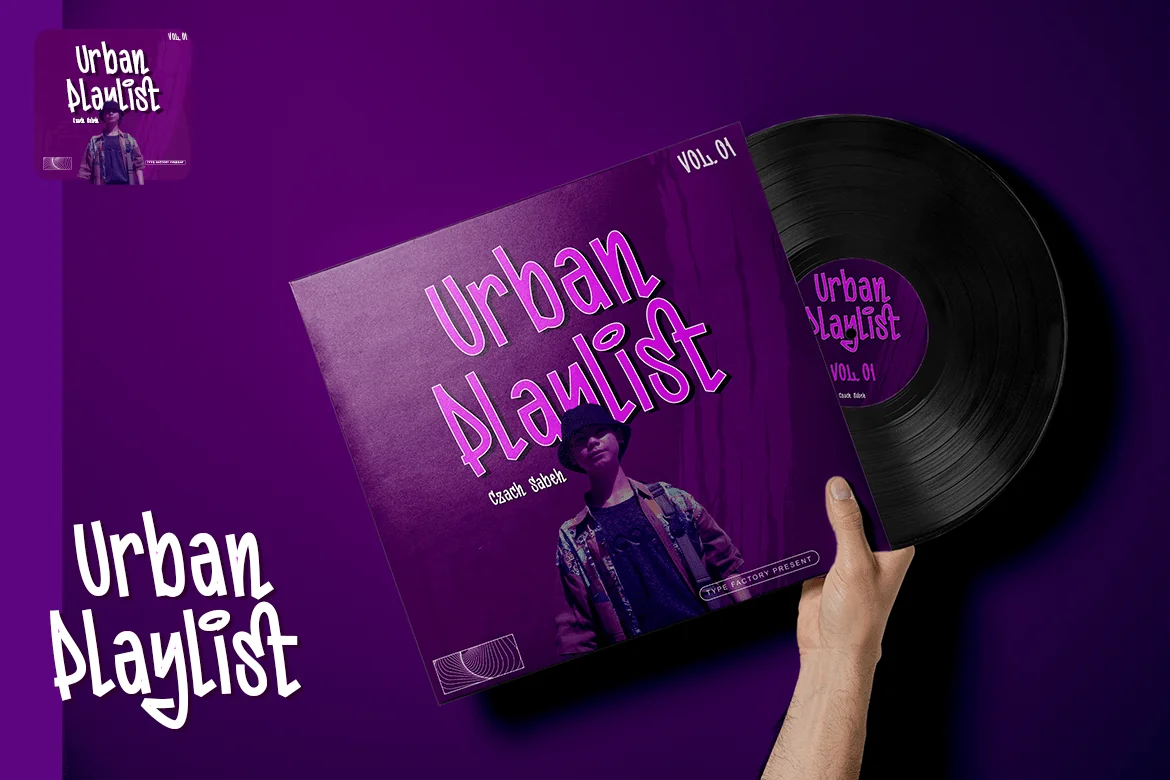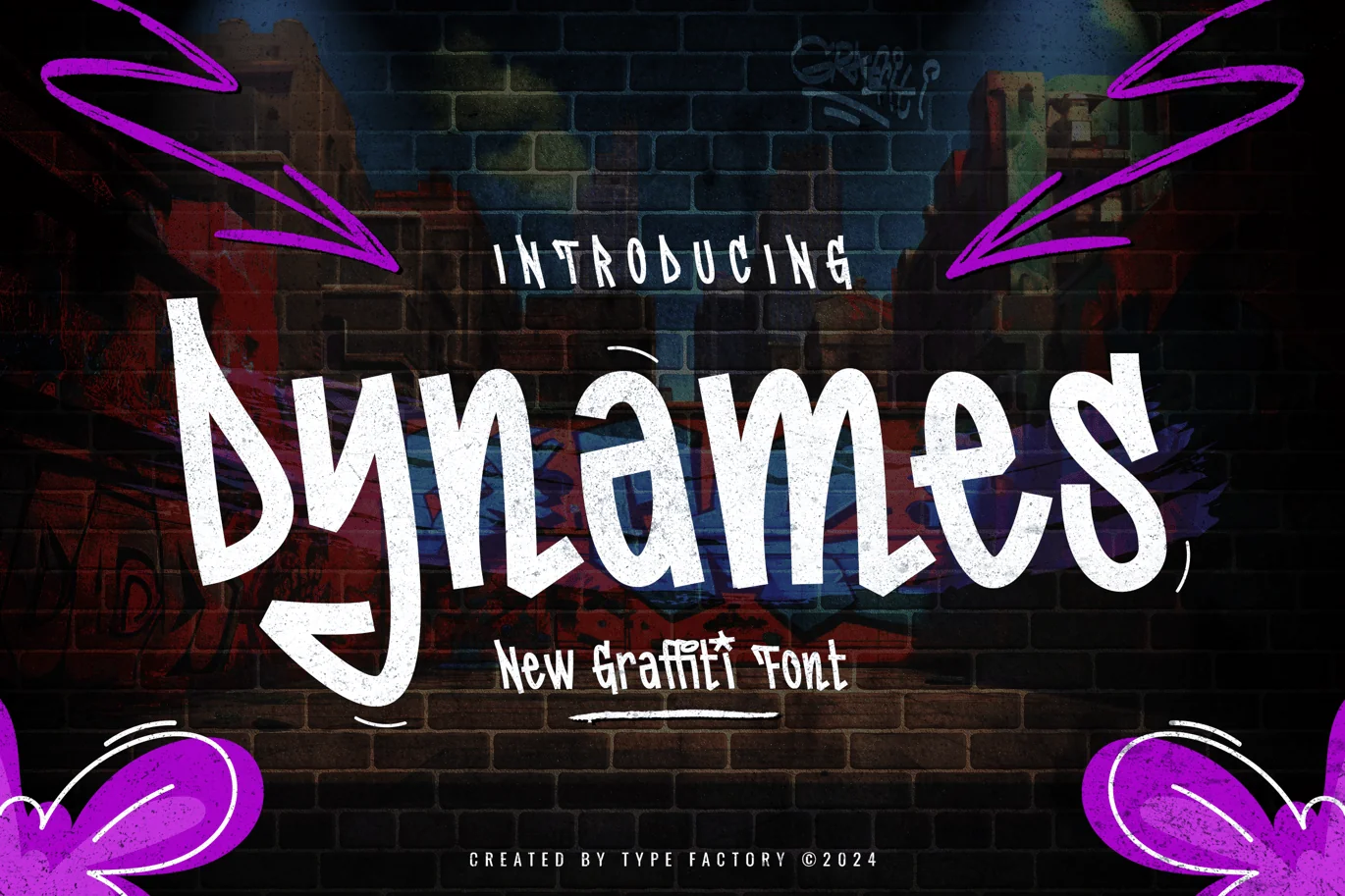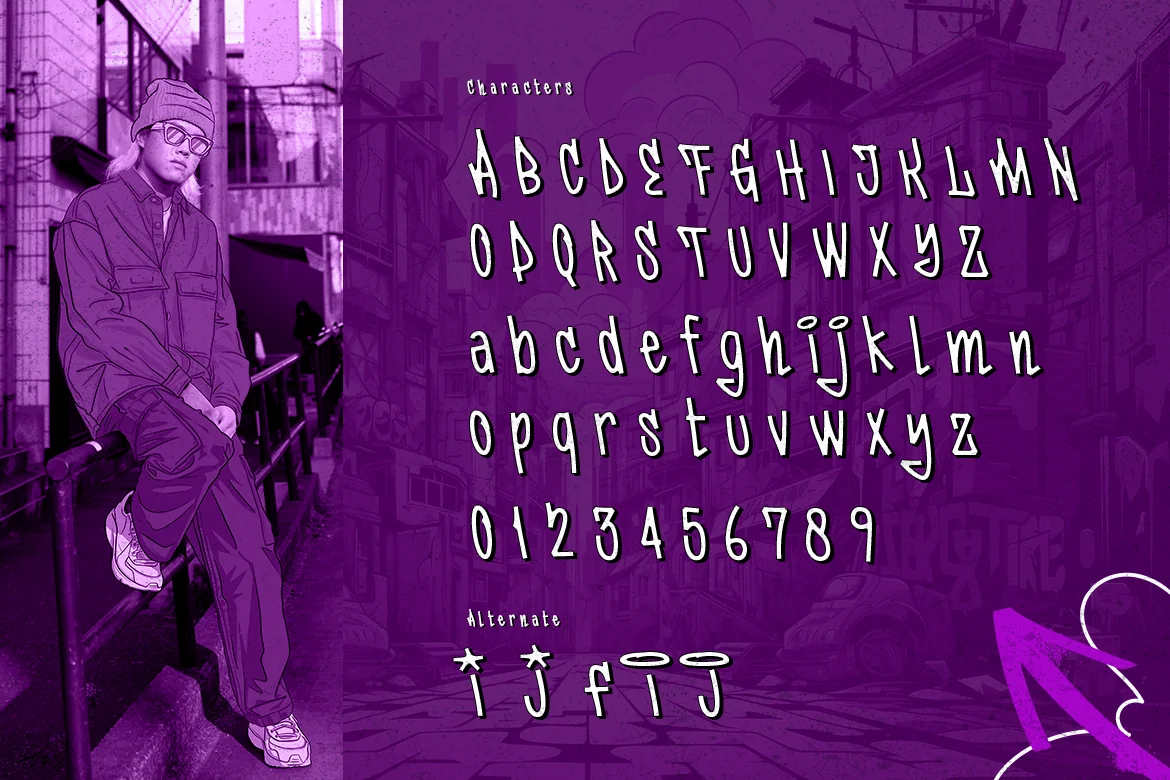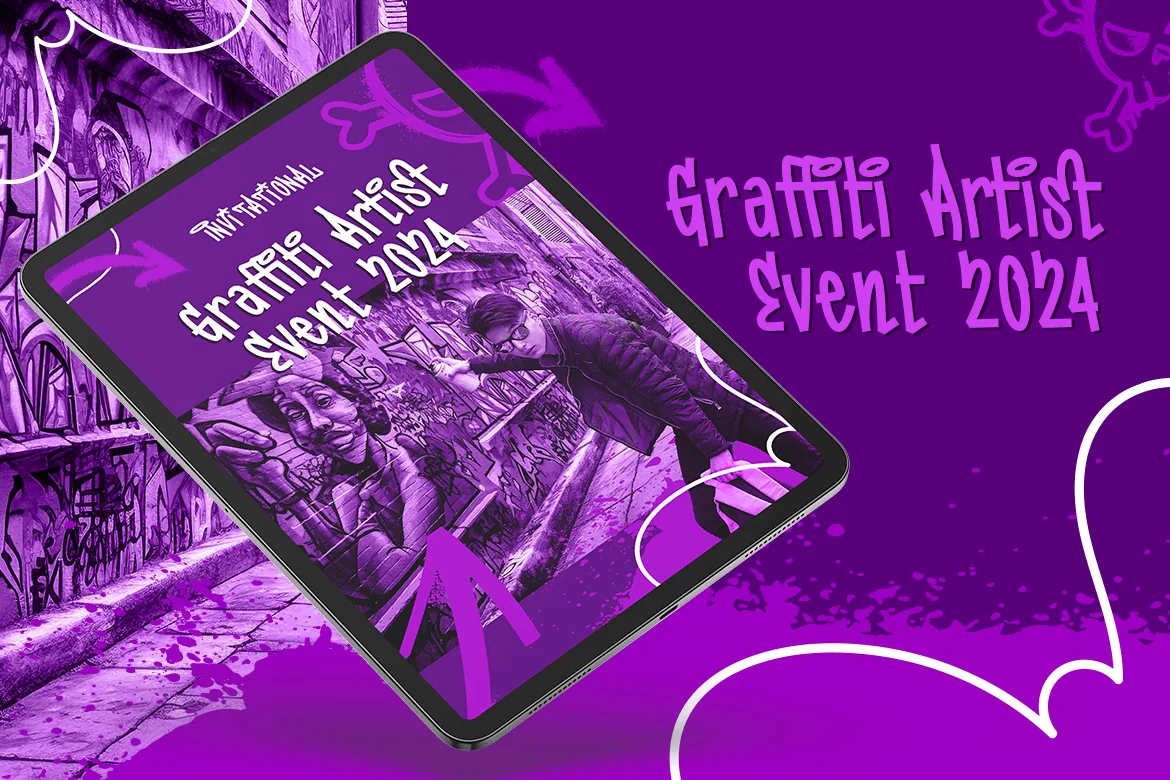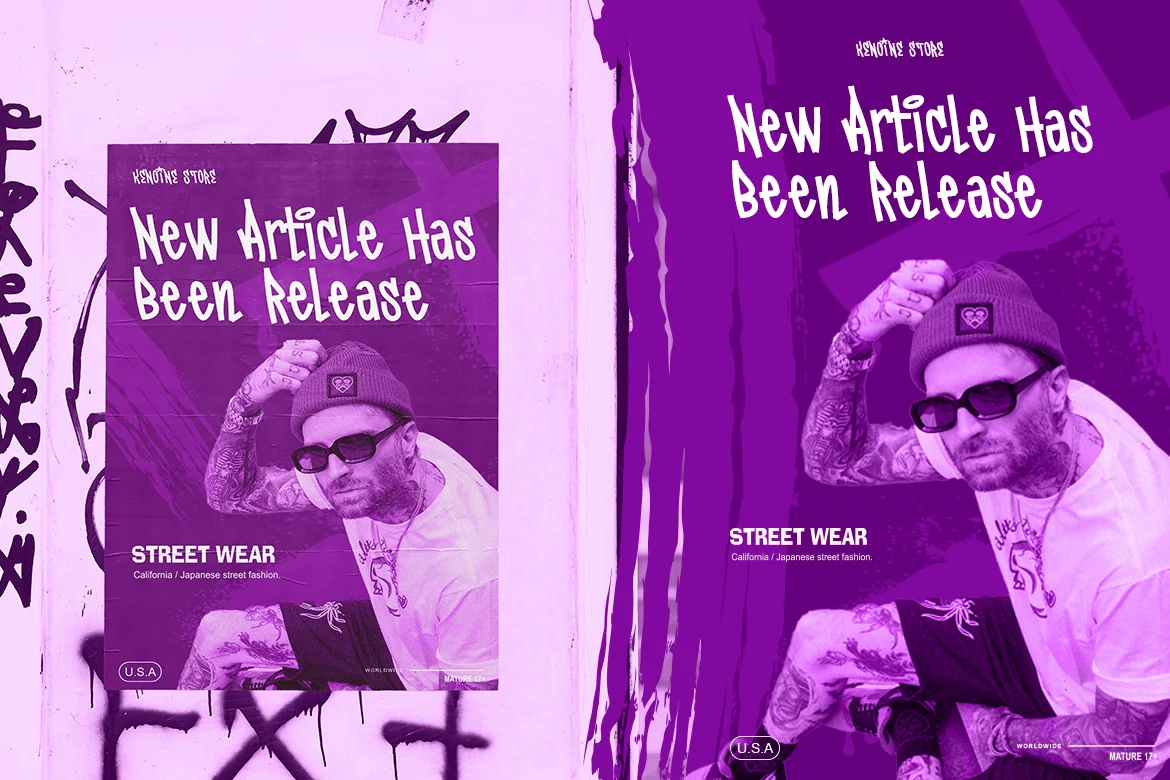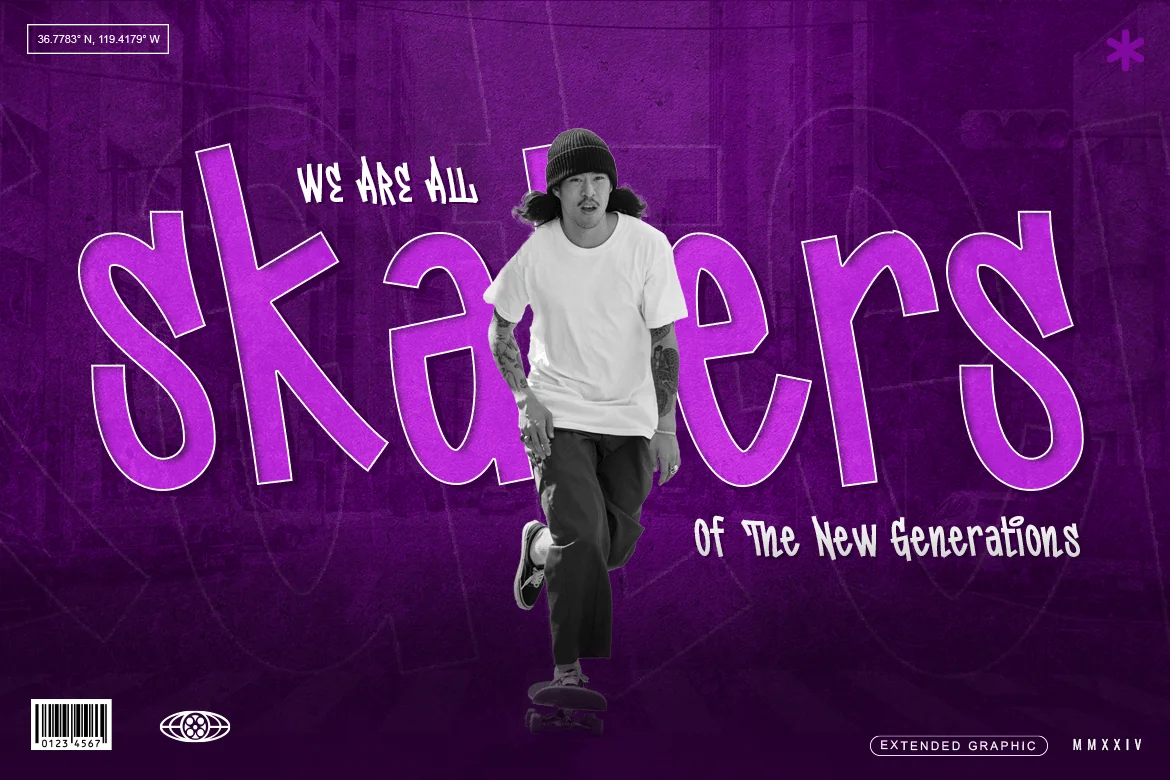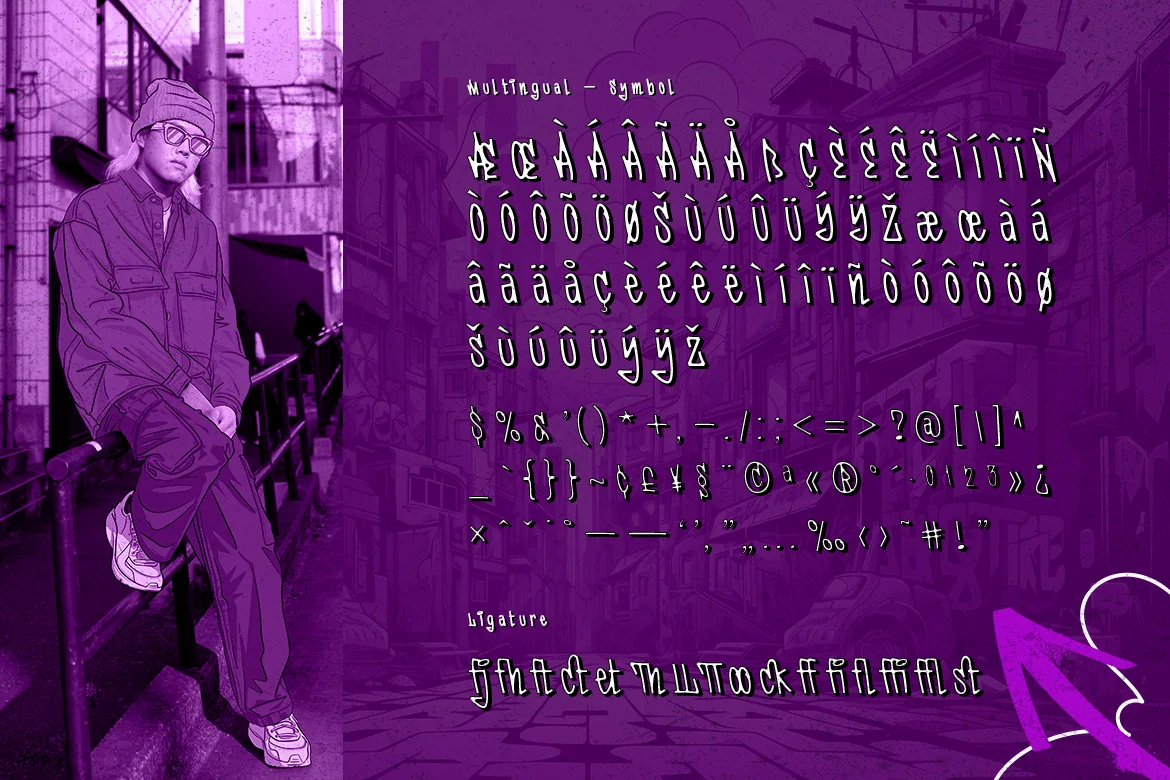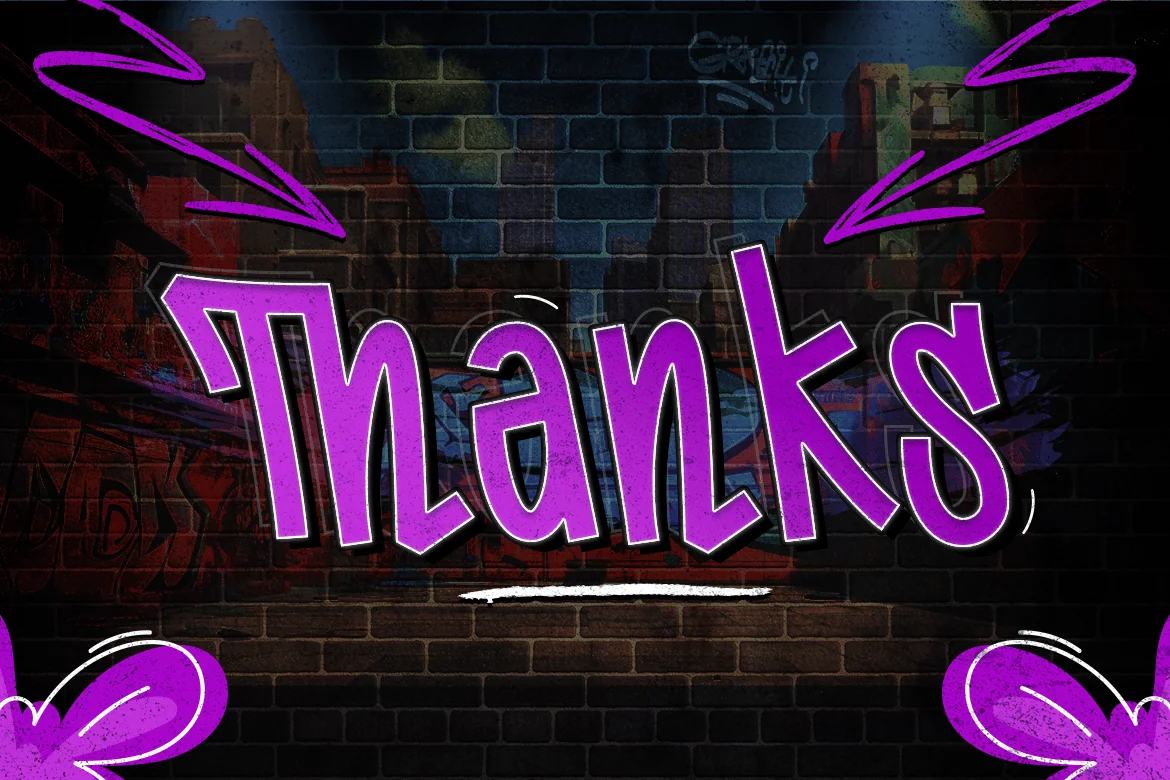
Dynames – New Graffiti Font
Dynames is a fresh and energetic graffiti font that embodies the spirit of urban creativity and street culture. With its bold, angular letterforms and dynamic spray-paint texture, Dynames is perfect for making a statement in posters, album covers, streetwear designs, and event promotions. This typeface captures the raw, rebellious essence of graffiti, offering a distinctive and edgy aesthetic that stands out in any setting. Whether you’re designing for a music event or a fashion brand, Dynames adds a powerful and authentic urban flair to your work.